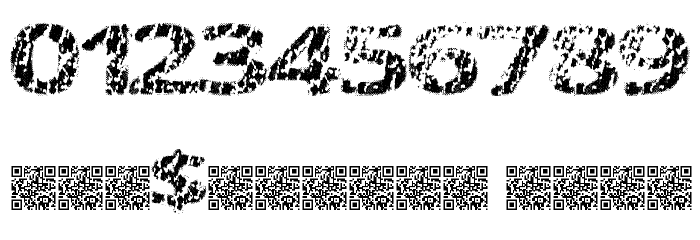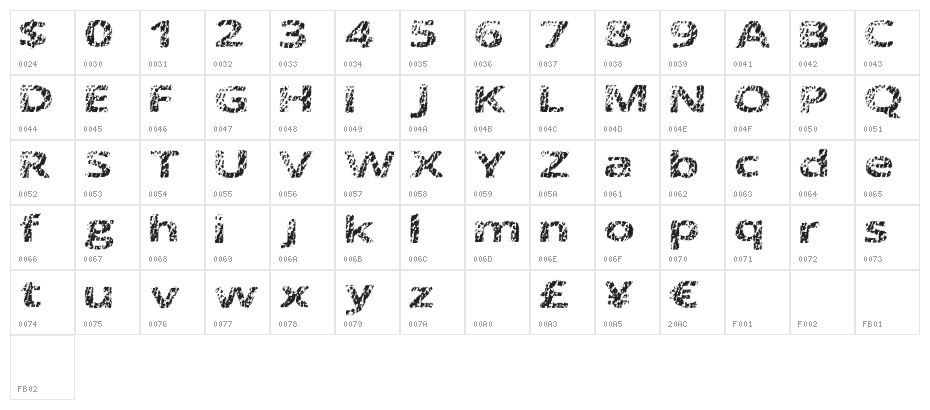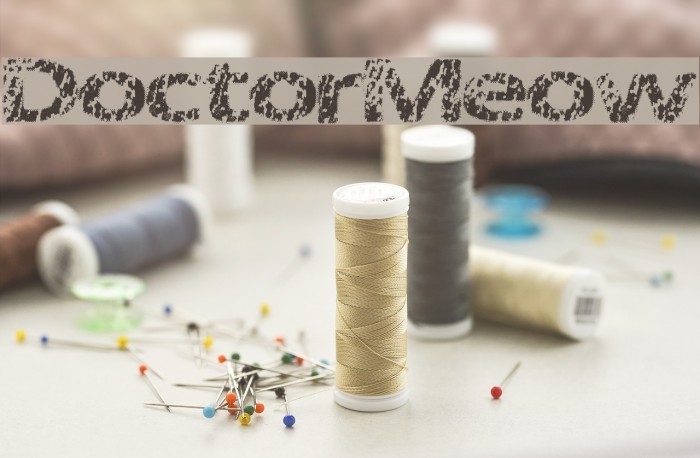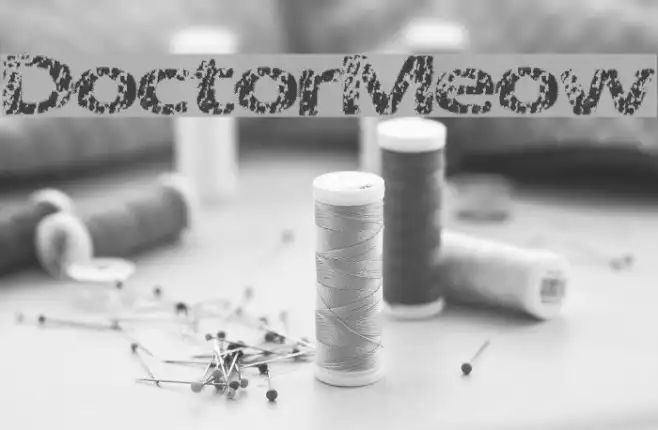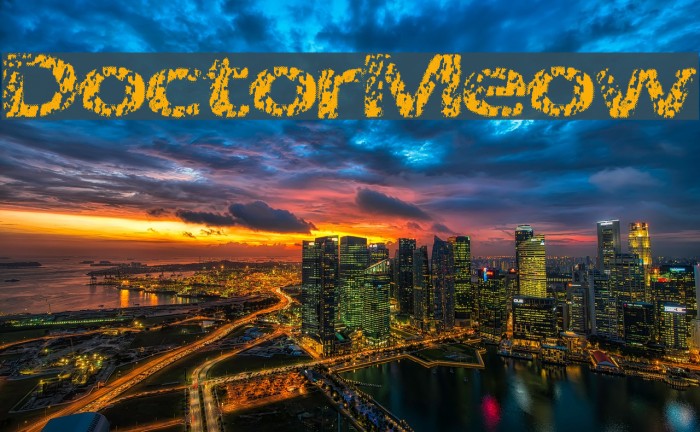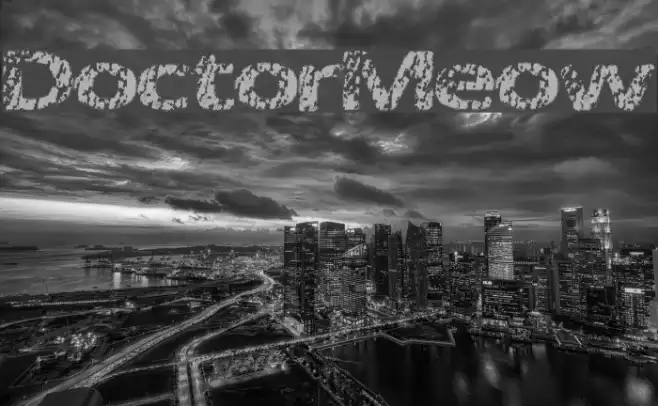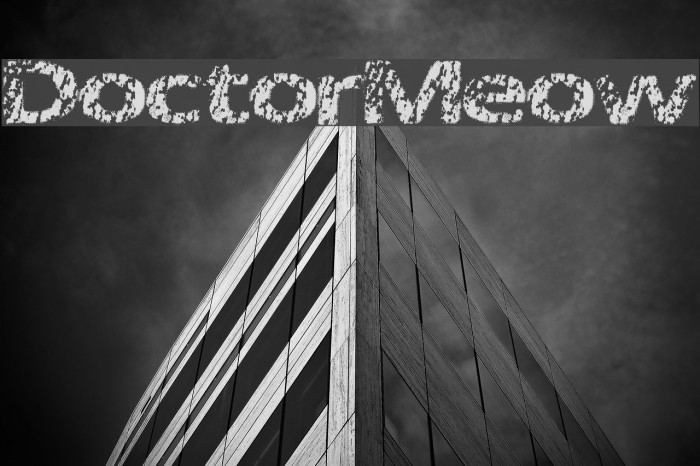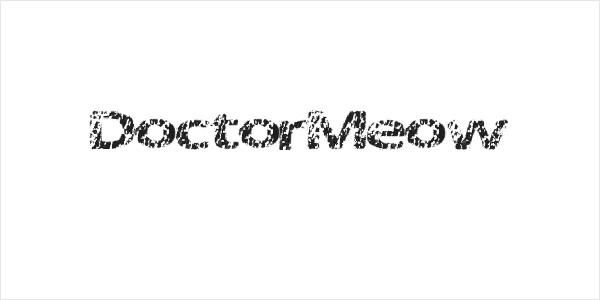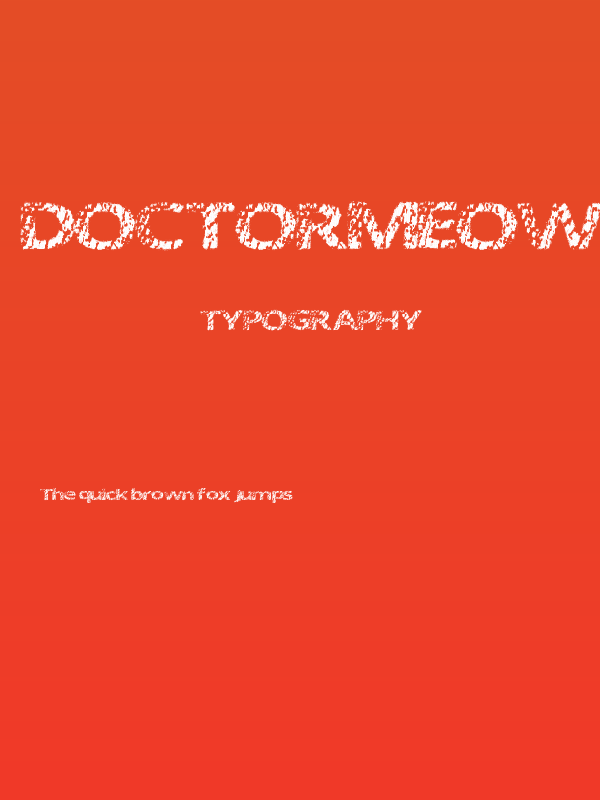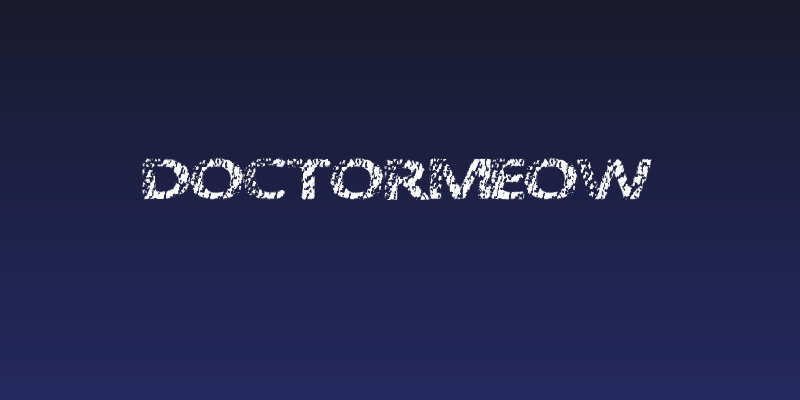
DoctorMeow Font
DoctorMeow Description
This font features a unique, textured design that gives the appearance of being composed of scattered particles or dots. The characters maintain a consistent form, yet the irregular edges create a dynamic and energetic feel. This style is particularly eye-catching and can add a distinctive touch to any design project. The uppercase and lowercase letters, along with numbers and special characters, all share this cohesive, textured aesthetic. The font's playful and artistic nature makes it suitable for creative and informal applications.
| Proposed Projects | Ideal for posters, album covers, artistic branding, and creative digital media. |